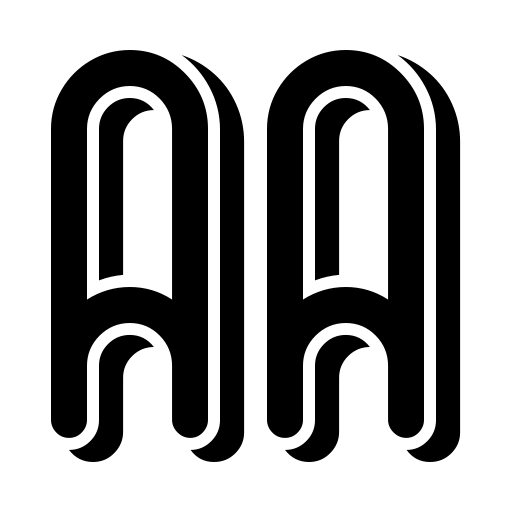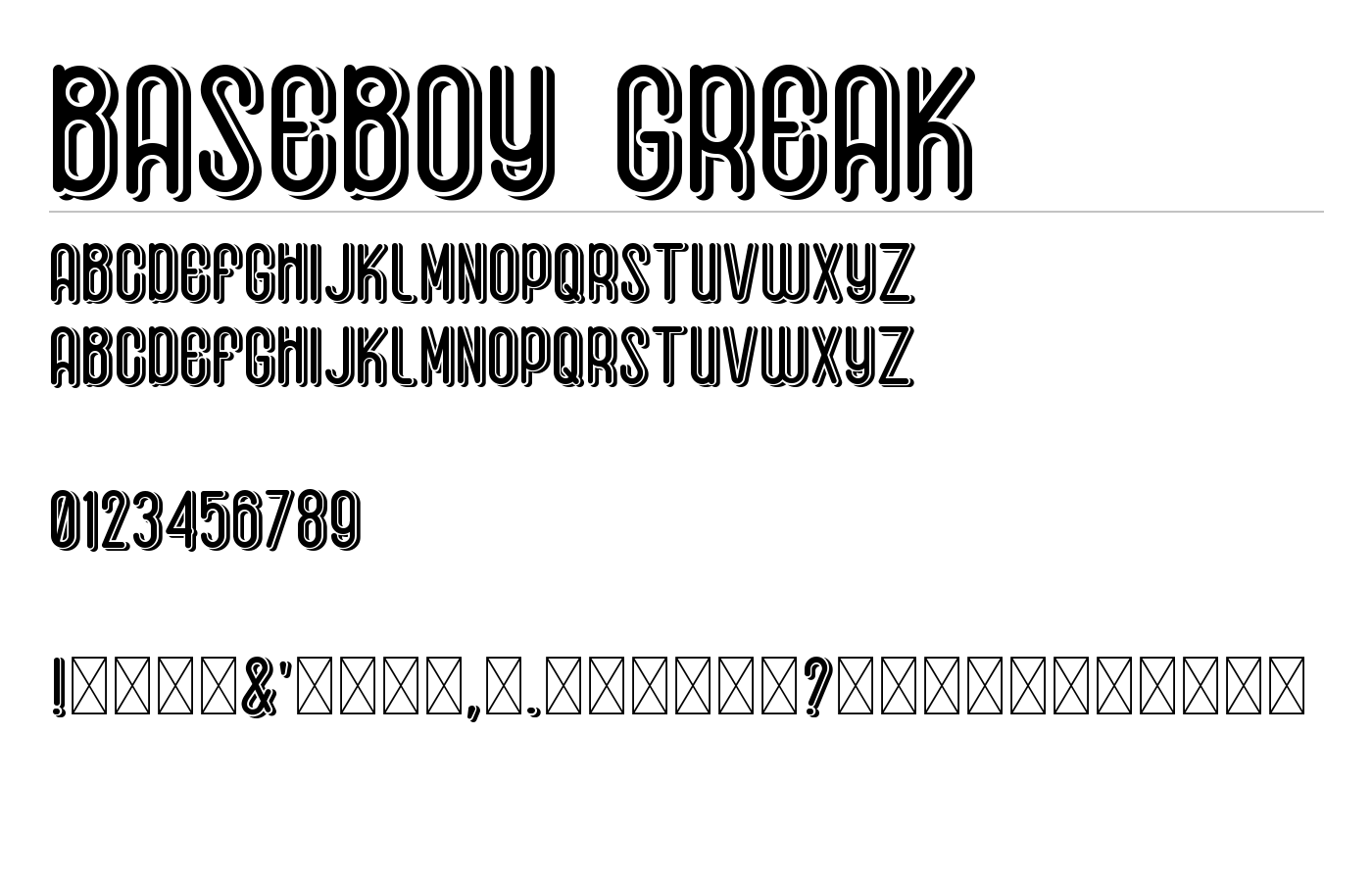
Baseboy Greak is a bold, condensed sans serif font with a striking, modern decorative style. Its tall, narrow letterforms feature layered strokes that create a dynamic 3D effect, making it perfect for eye-catching headlines and branding that demands attention. This font's unique personality blends a futuristic vibe with vintage charm, ideal for posters, logos, and display use where strong visual impact is key.
Baseboy Greak Font